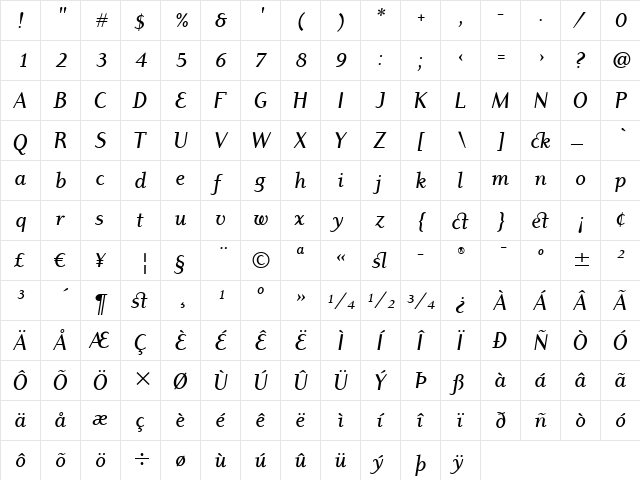
Dyadis ITC Medium Italic Font Preview
Dyadis ITC Medium Italic
Dyadis ITC Medium Italic Font Details
| Style | Medium Italic |
| Foundry | International Typeface Corporation |
Design Context for Dyadis ITC Typeface
Dyadis ITC is a composed and adaptable typeface that performs quietly and consistently across a wide range of design contexts. Its italic angle brings a sense of urgency and motion to the letterforms.
Pro Tip: Try Dyadis ITC for annotation and caption copy alongside an upright companion — the contrast in angle creates a dynamic but ordered typographic system.